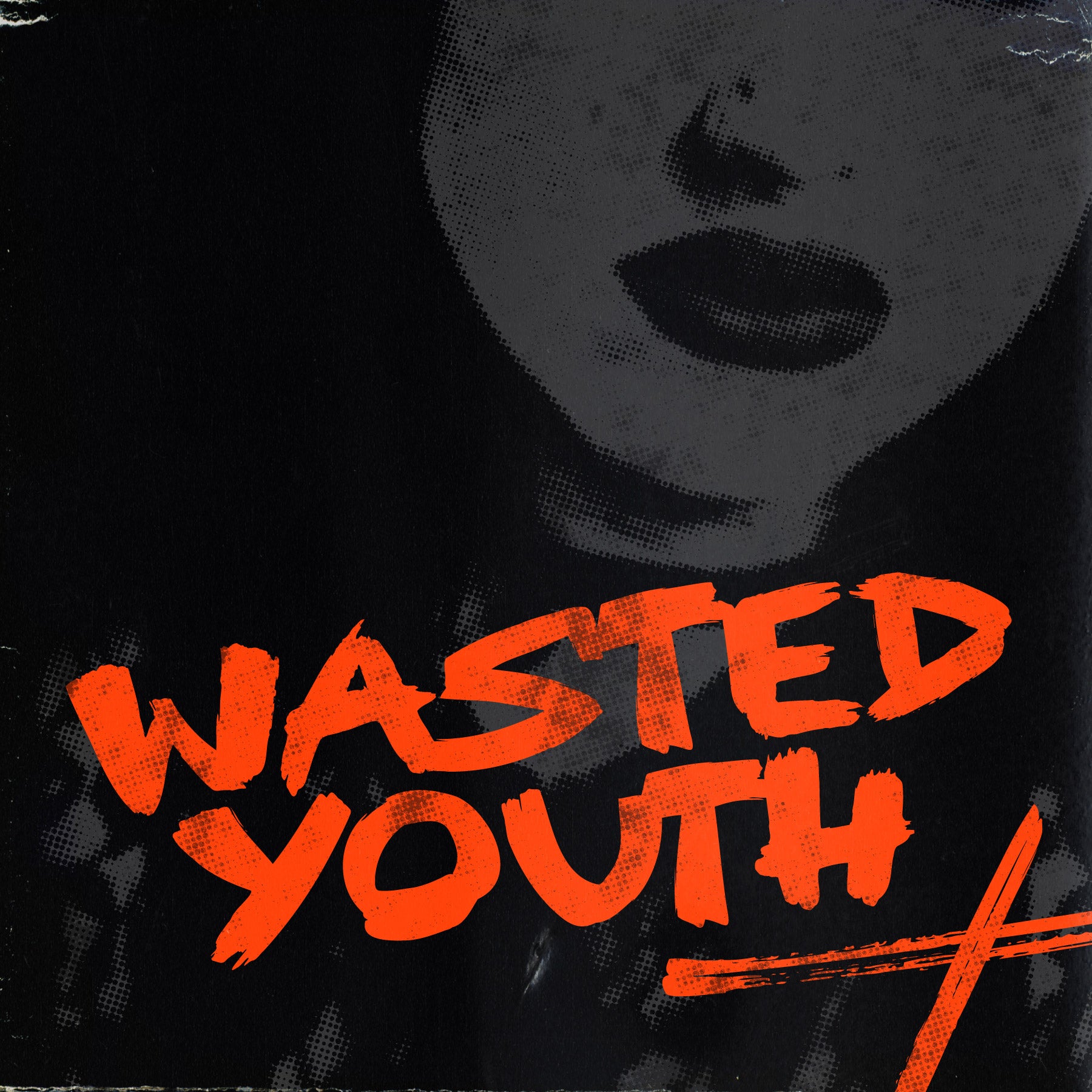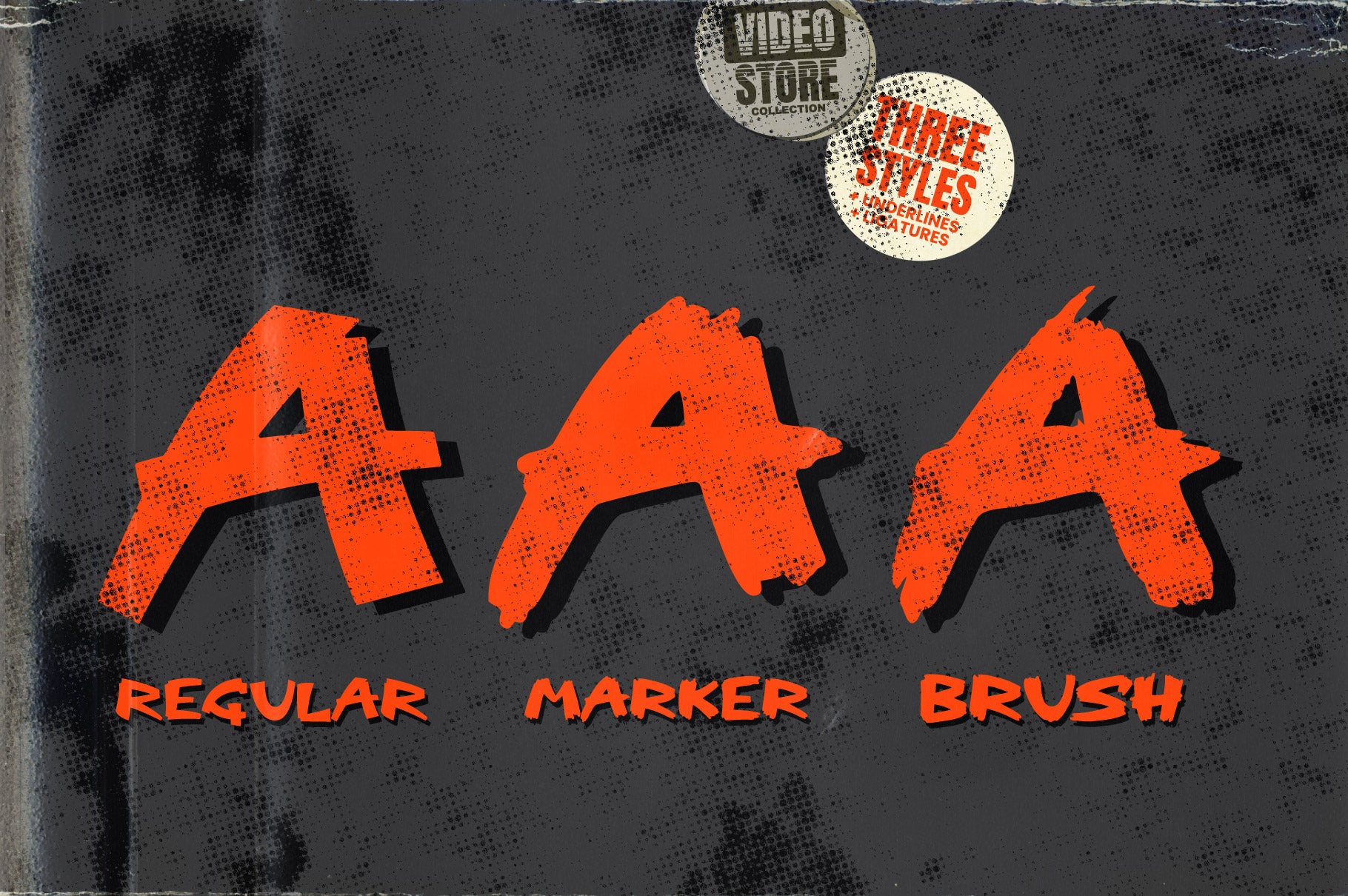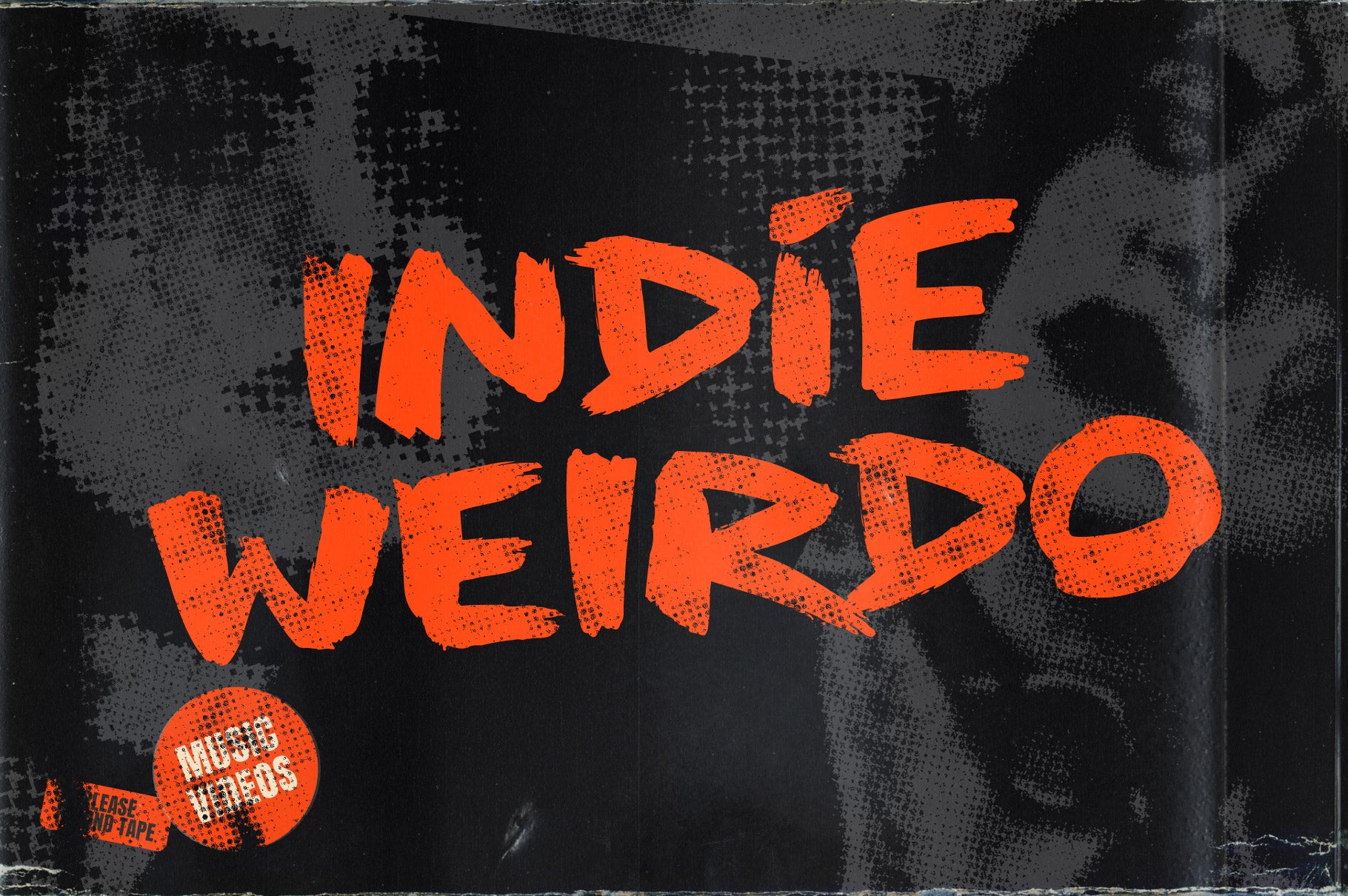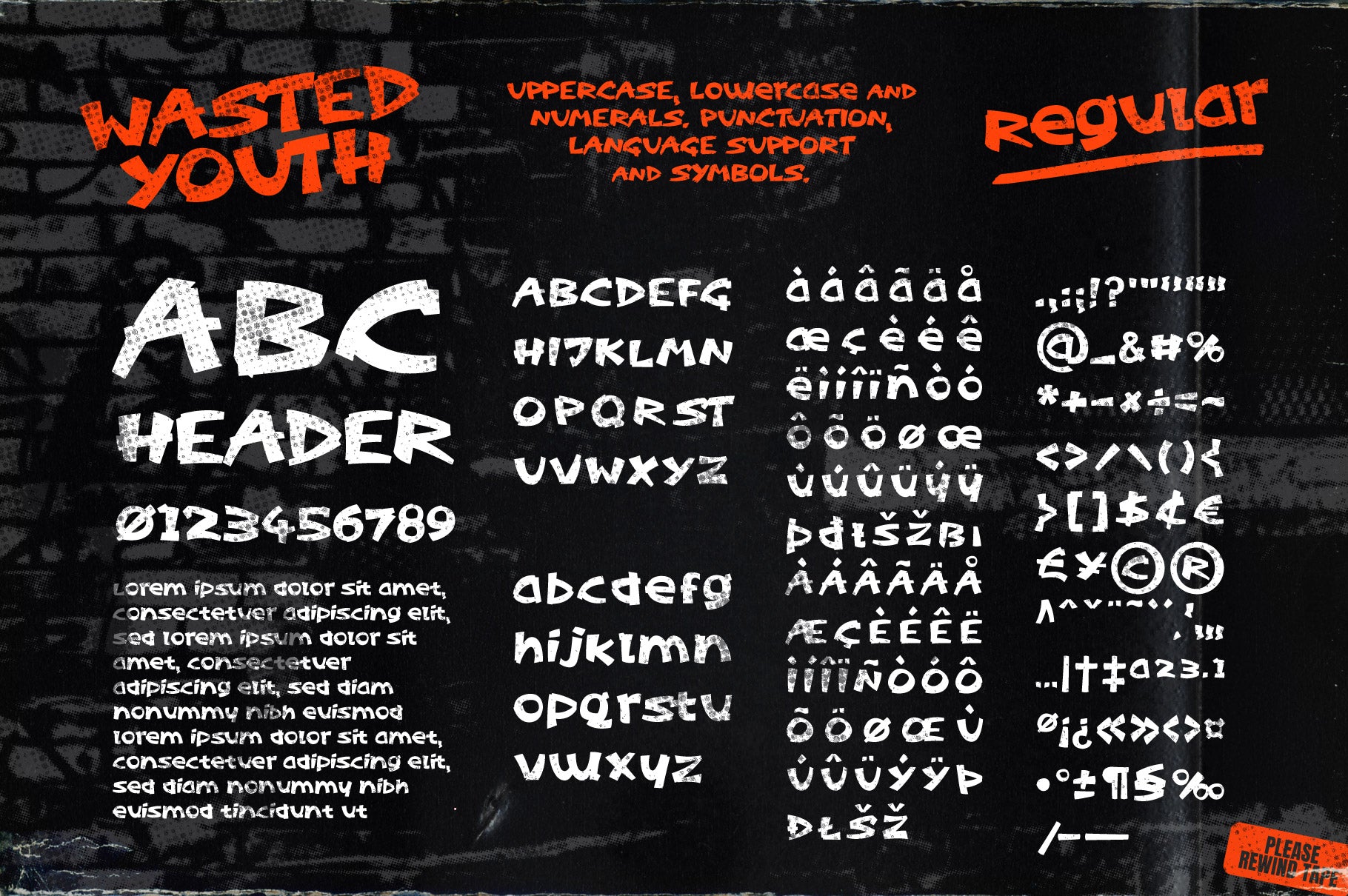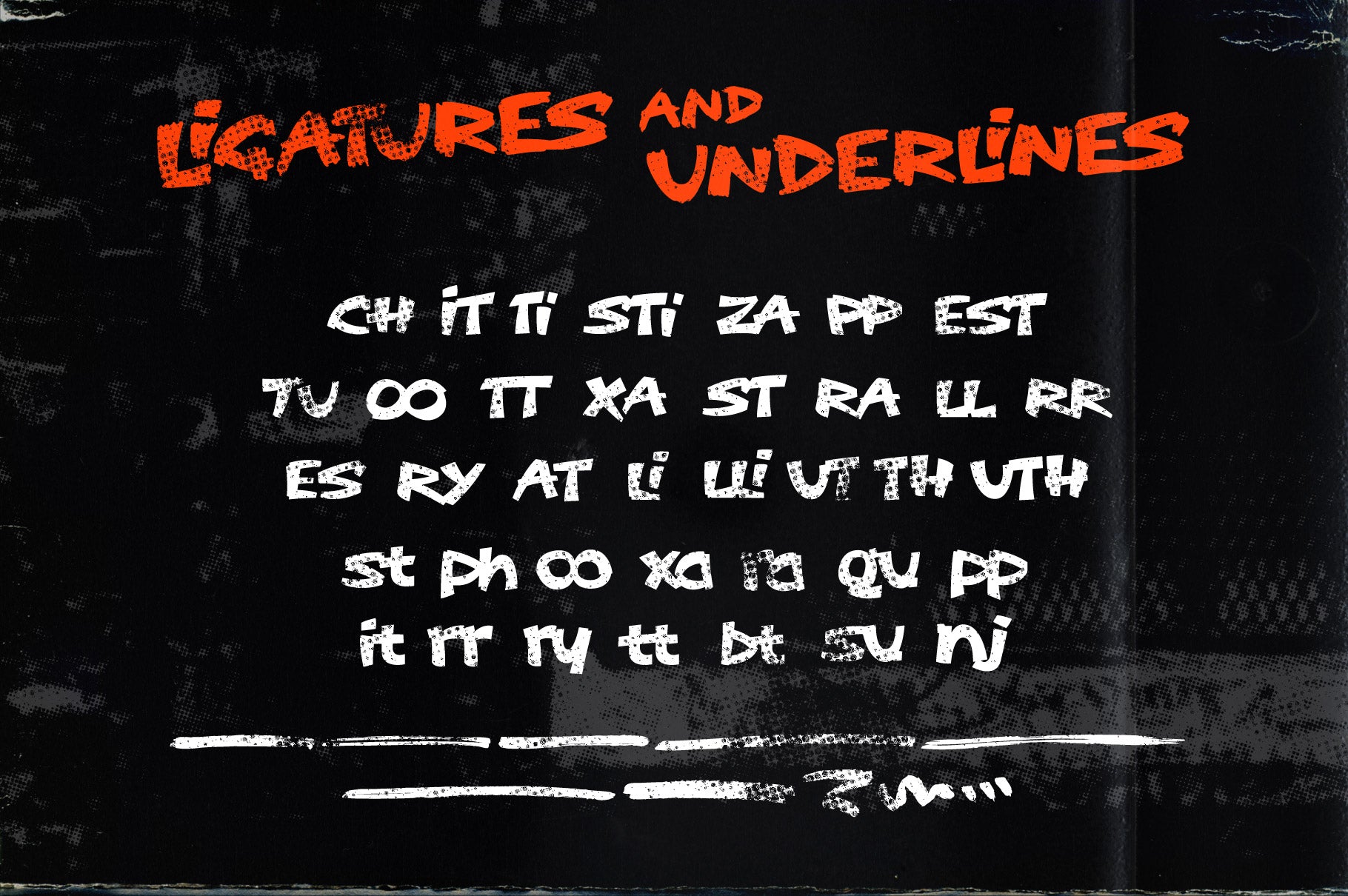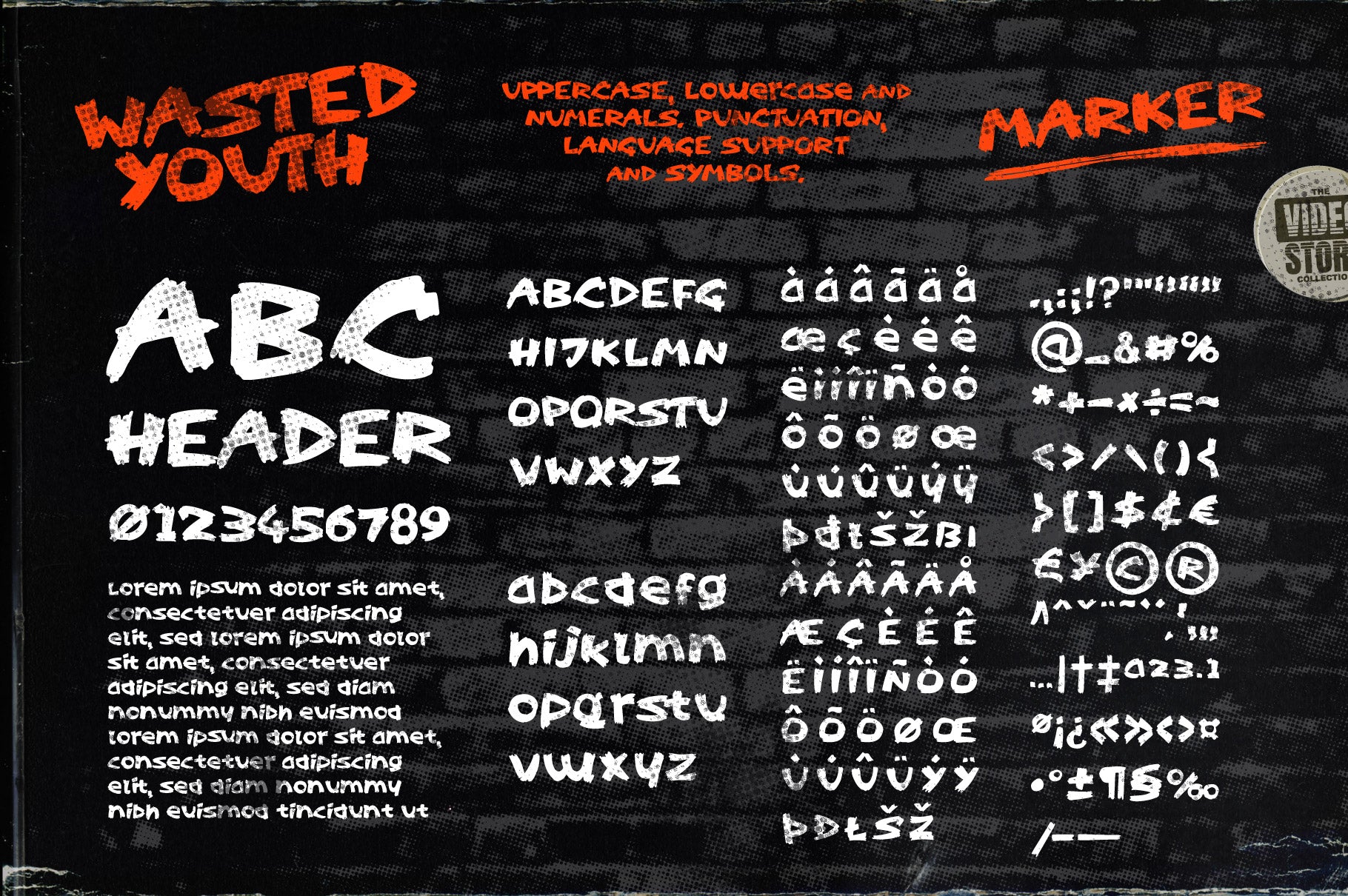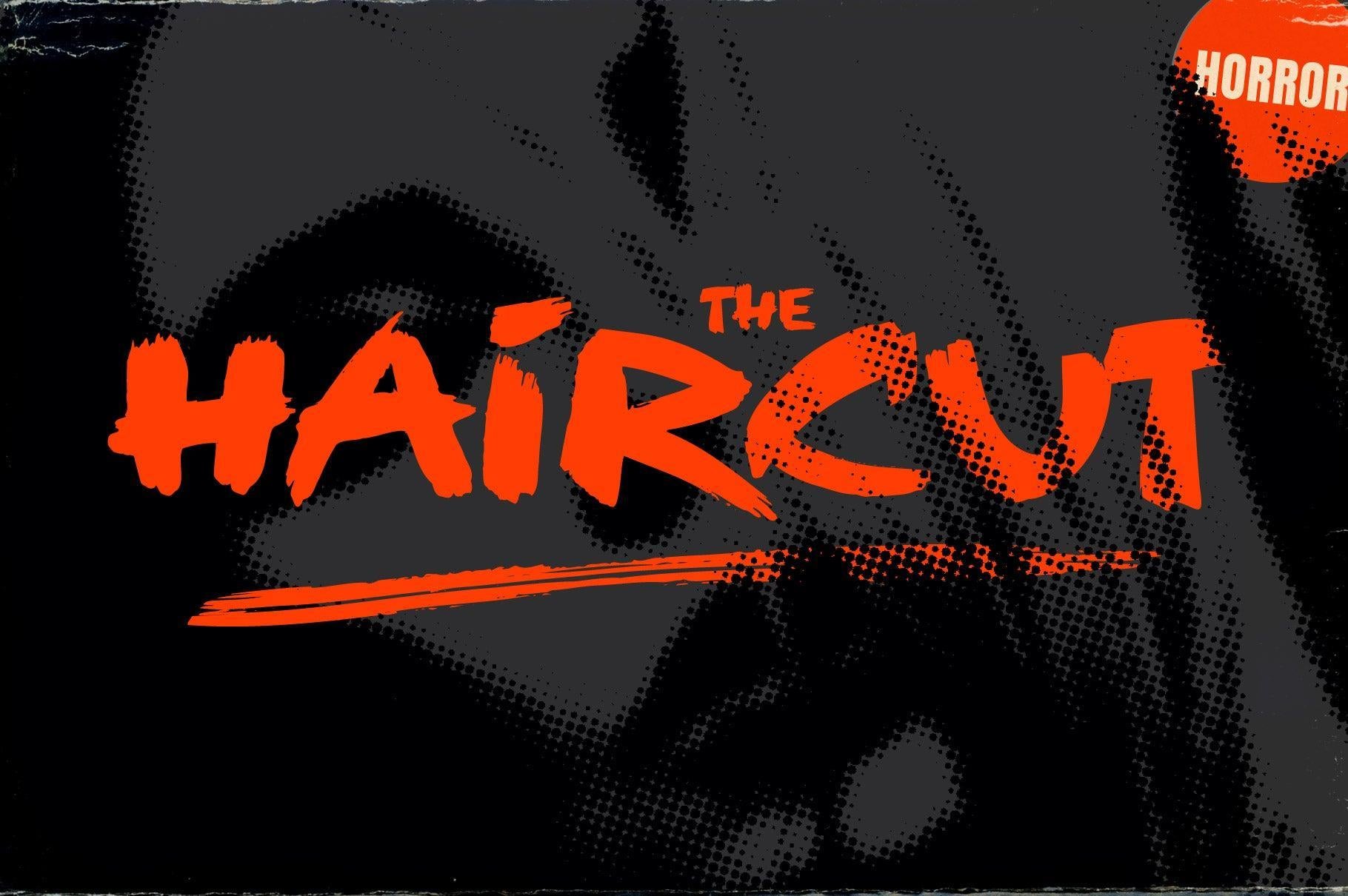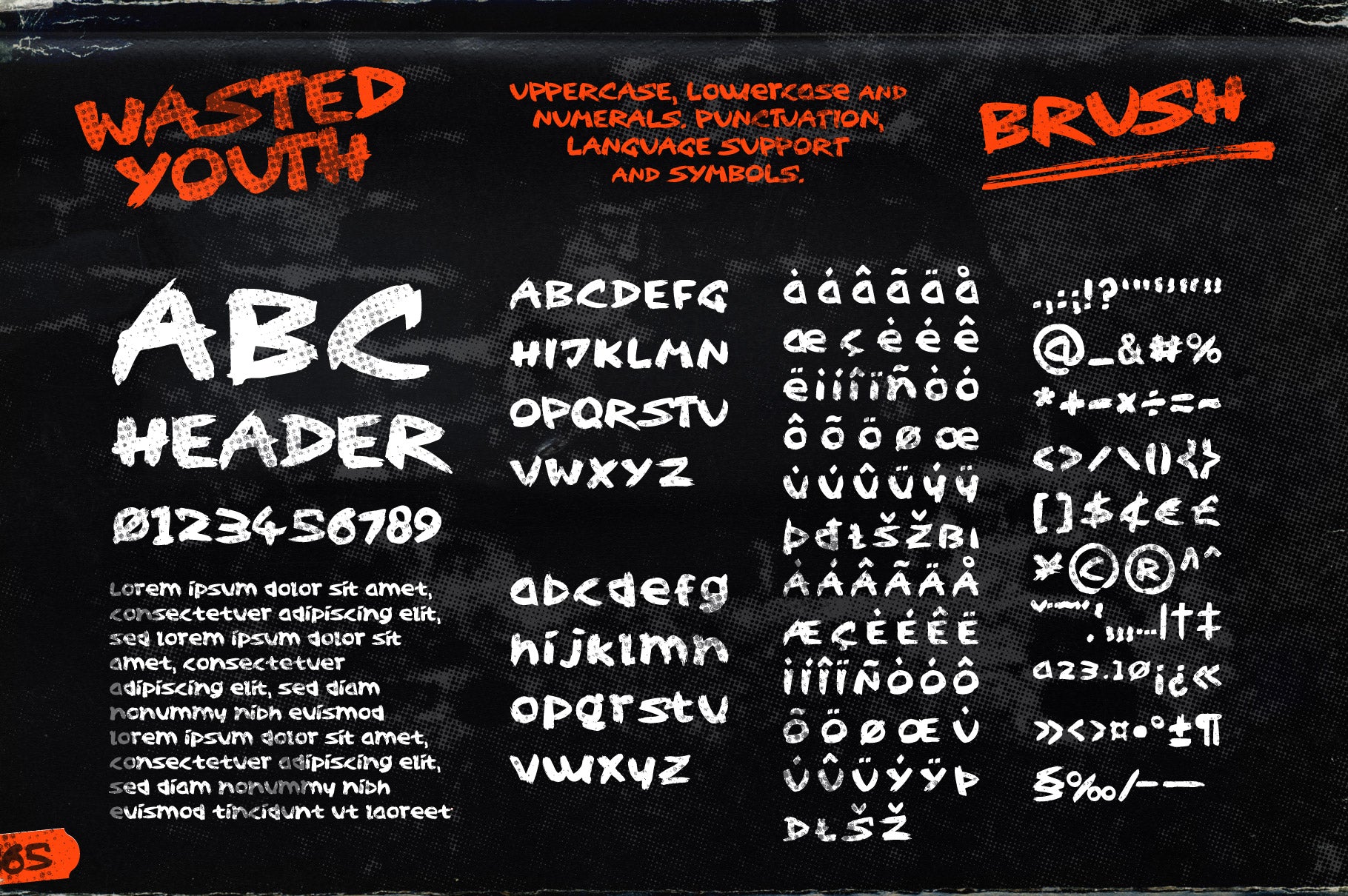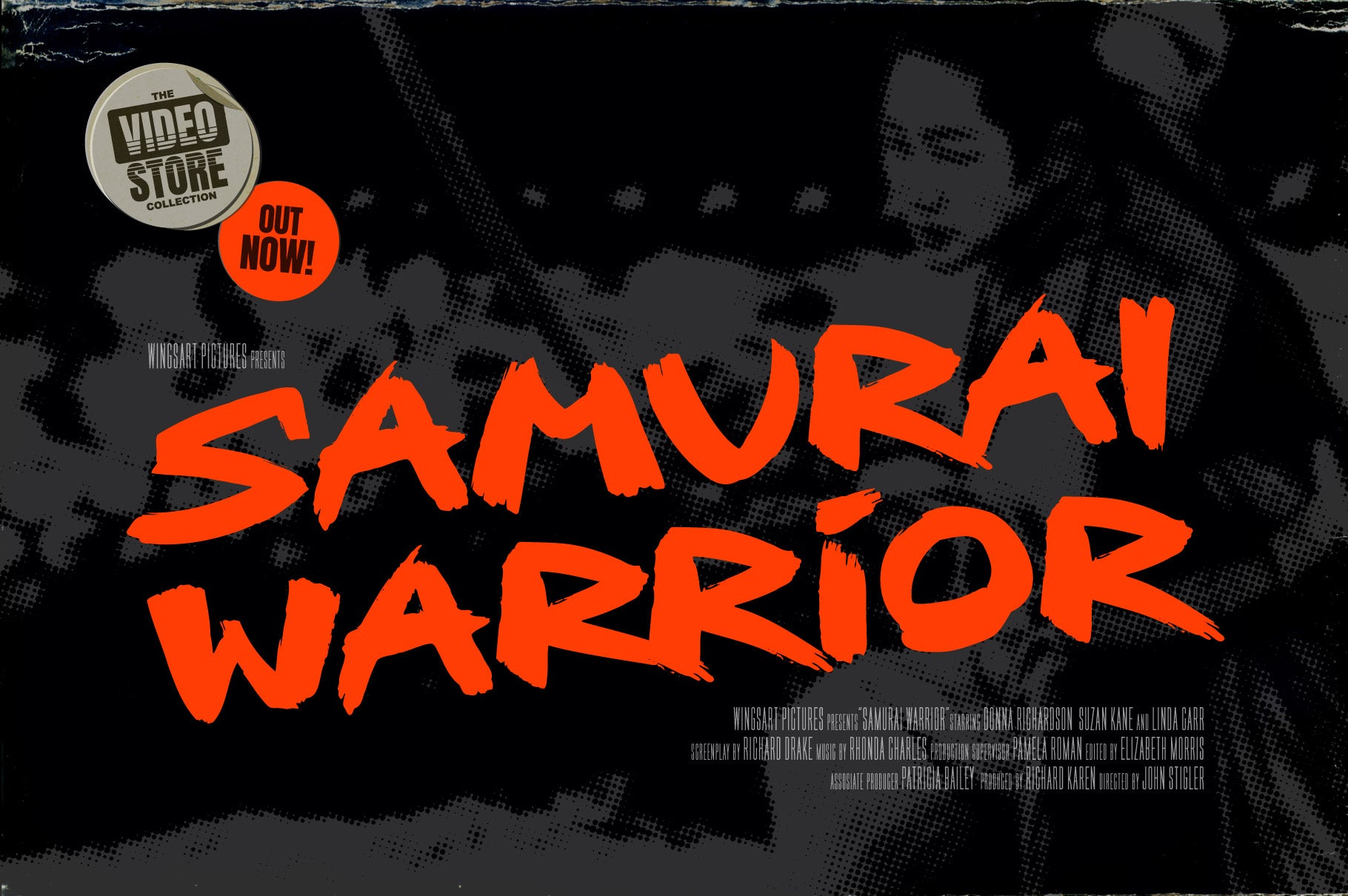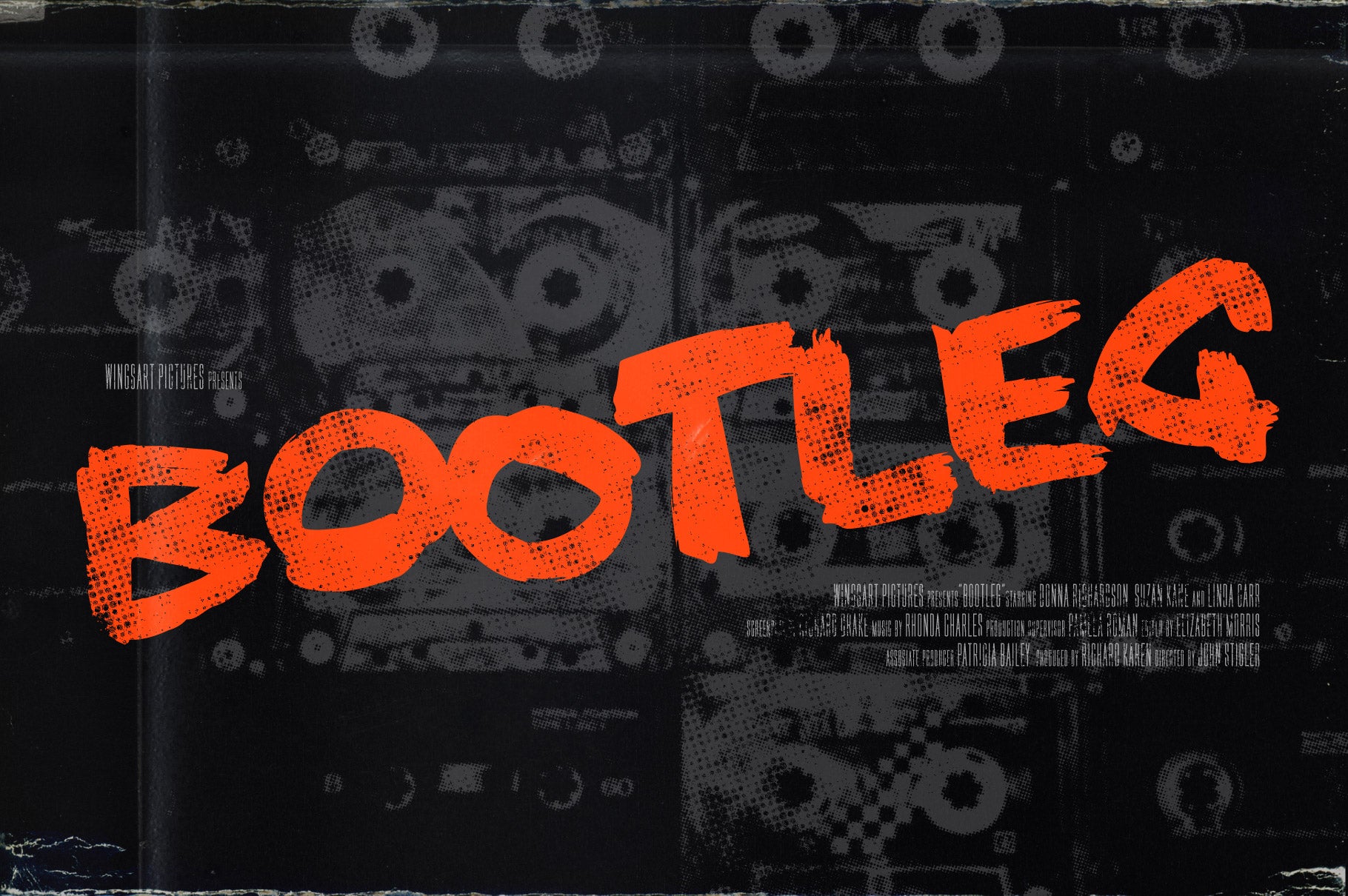
Wasted Youth: A 90s Grunge Brush Font
Wasted Youth: A 90s Grunge Brush Font is a versatile font featuring three styles—Regular, Marker, and Brush—each inspired by 90s grunge and punk aesthetics. It includes uppercase and lowercase characters, custom ligatures, underlines, numerals, punctuation, and language support, available in OTF, TTF, and WOFF formats.
Ideal for grunge-inspired graphic design and punk aesthetics. Perfect for album covers, t-shirts, posters, and skate culture visuals, ensuring an authentic, hand-crafted look that resonates with urban creativity.